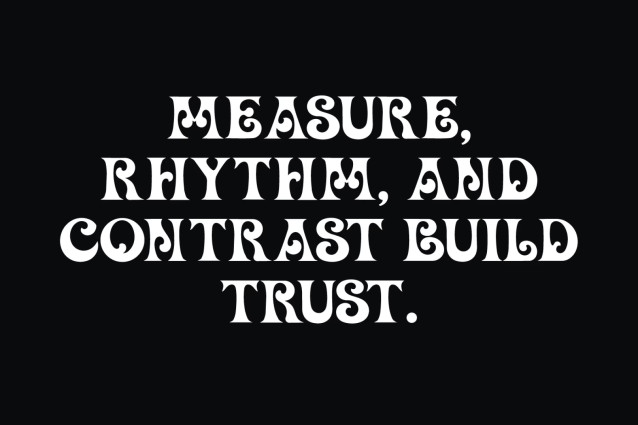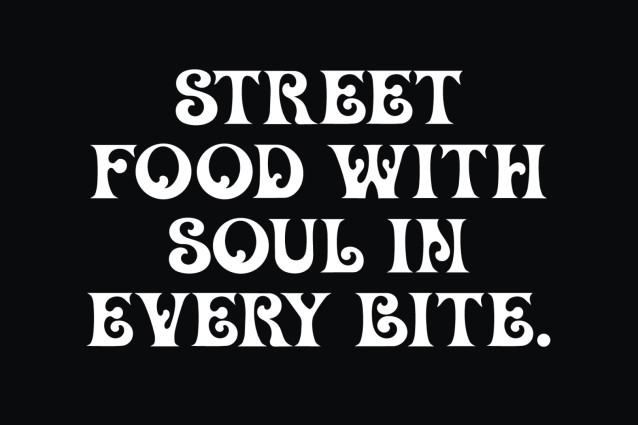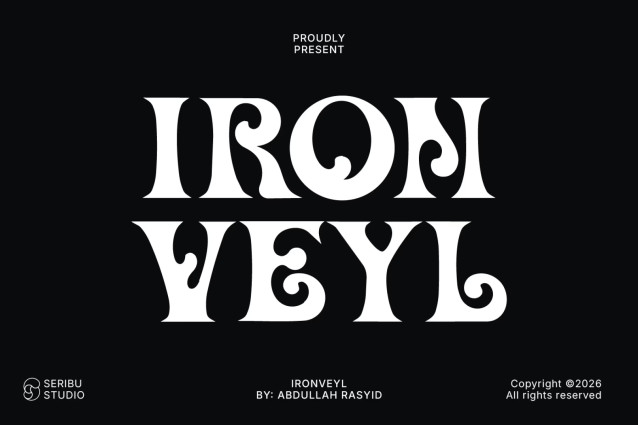
Ironveyl is a bold decorative display typeface with a distinctive vintage character and expressive serif details. Designed to make a strong visual statement, its unique letterforms combine dramatic shapes with elegant curves, creating a memorable and powerful look.
Perfect for logos, branding, posters, album covers, apparel, packaging, headlines, invitations, and other creative display projects. Ironveyl works especially well when you want a design to feel bold, artistic, mysterious, and distinctive.
Ironveyl includes uppercase and lowercase letters, numbers, punctuation, and a range of accented characters for multilingual use.